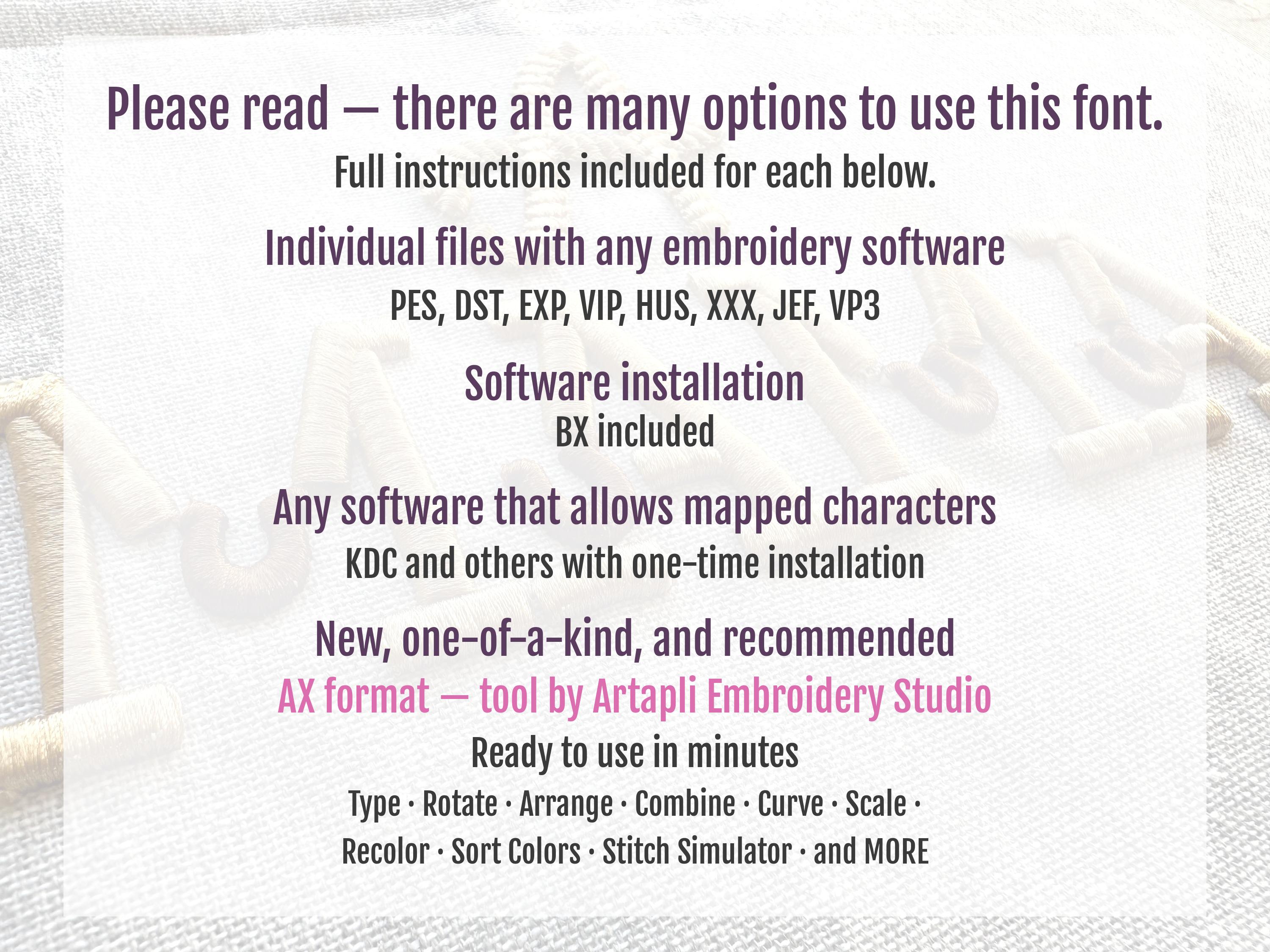
Puff Horseshoe Embroidery font machine embroidery designs 3D raised Puffy Foam Cowboy alphabet monogram Block Font 2, 2.5, 3 inches, BX
Whole alphabet A-Z uppercase, and numbers 0-9.
Please note, included 2 fonts:
* characters with horseshoe leaning left
* characters with horseshoe leaning right